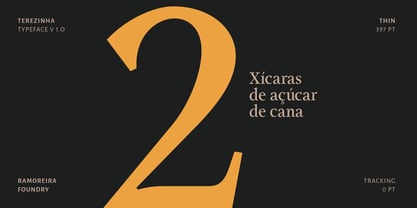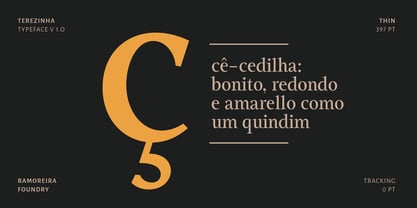
Terezinha
by Ramoreira Foundry
The Terezinha Font Family was designed by Diogo Ramos Moreira and published by Ramoreira Foundry. Terezinha contains 1 styles. More about this family
TEREZINHA is a typeface with a pinch of Portuguese seasoning. Designed for cookbook texts.
Designers: Diogo Ramos Moreira
Foundry: Ramoreira Foundry